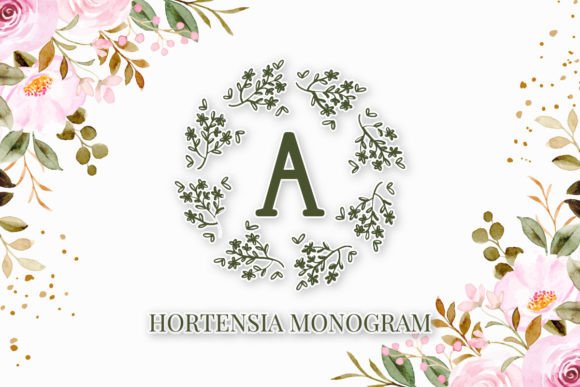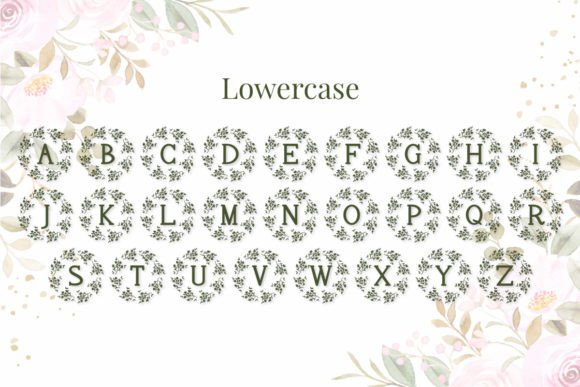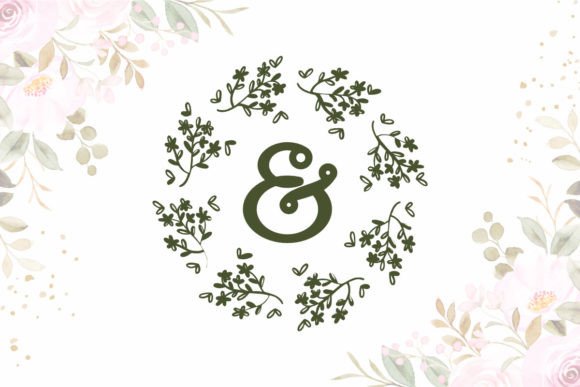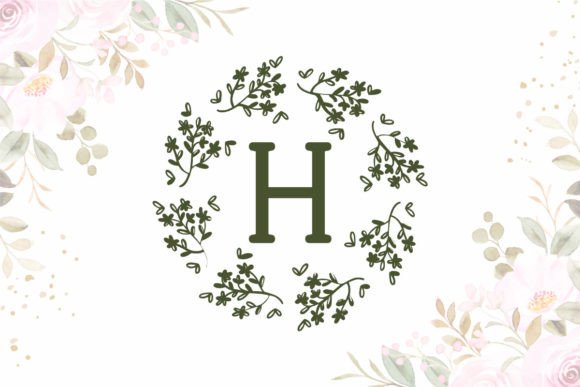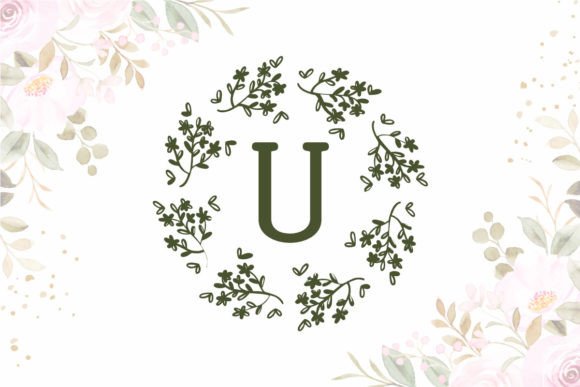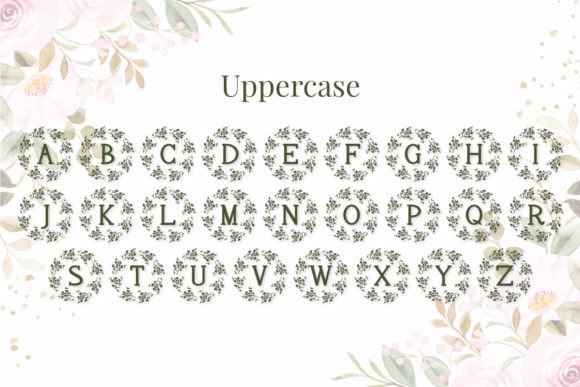
Hortensia Font
About Hortensia Font
Hortensia is a charming and enchanting decorative font that showcases exquisite flower monograms. With its authentic and delicate design, this font is perfect for adding a touch of elegance and beauty to your projects. Whether you’re creating wedding invitations, social media posts, or greeting cards, Hortensia will inspire and captivate your audience.
The beauty of Hortensia lies in its intricate flower monograms, which add a unique and personalized touch to your designs. Each letter is adorned with a beautifully crafted floral element, creating a harmonious and romantic aesthetic. This makes it an excellent choice for wedding-related materials, such as invitations, save-the-dates, or place cards. The delicate and elegant nature of Hortensia will instantly elevate the visual appeal of your wedding stationery, leaving a lasting impression on your guests.
In addition to weddings, Hortensia can also be used to create eye-catching social media posts. Whether you’re promoting a special event, sharing a heartfelt message, or simply adding a touch of beauty to your feed, this font will make your content stand out. Its decorative elements and authentic feel will attract attention and engage your audience.
Furthermore, Hortensia is well-suited for designing cute greeting cards. Whether it’s for birthdays, anniversaries, or special occasions, this font will infuse your cards with a sense of charm and whimsy. The flower monograms can be used to create unique and personalized designs, making your greetings truly special and memorable.
When using Hortensia, allow your creativity to flourish. Experiment with different colors, sizes, and layouts to create truly stunning compositions. The font’s versatility enables it to be used in various design projects, such as logos, branding materials, and even art prints.
In summary, Hortensia is a lovely decorative font that adds a touch of authenticity and beauty to your designs. Its flower monograms exude elegance and charm, making it perfect for wedding invitations, social media posts, and greeting cards. Let Hortensia inspire you to create stunning visuals that leave a lasting impression on your audience.